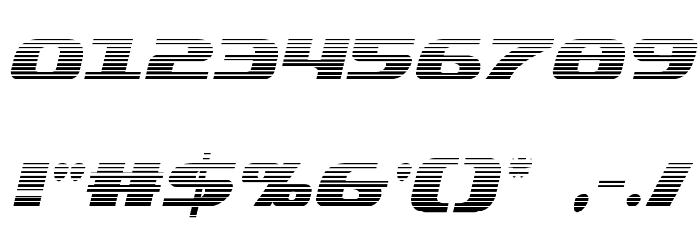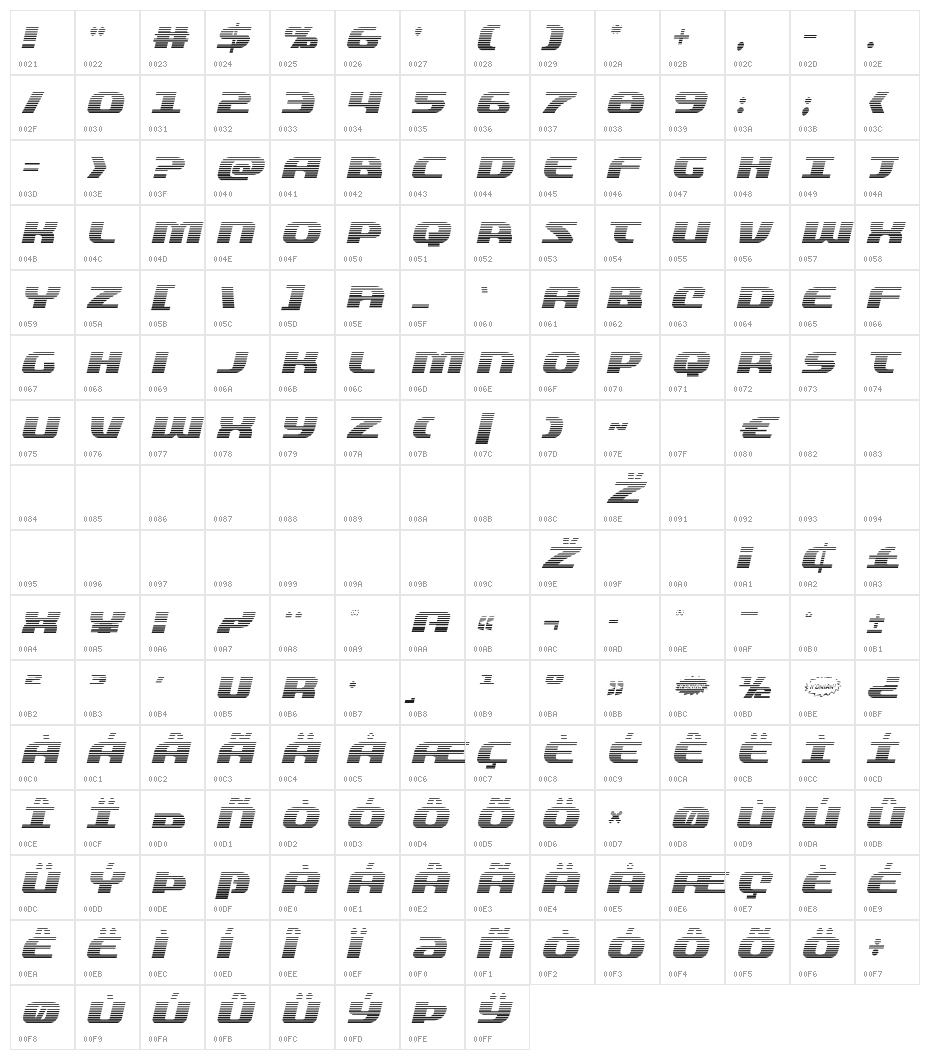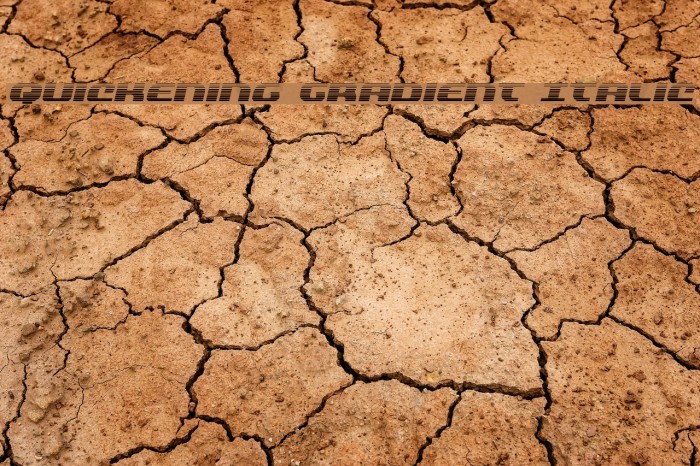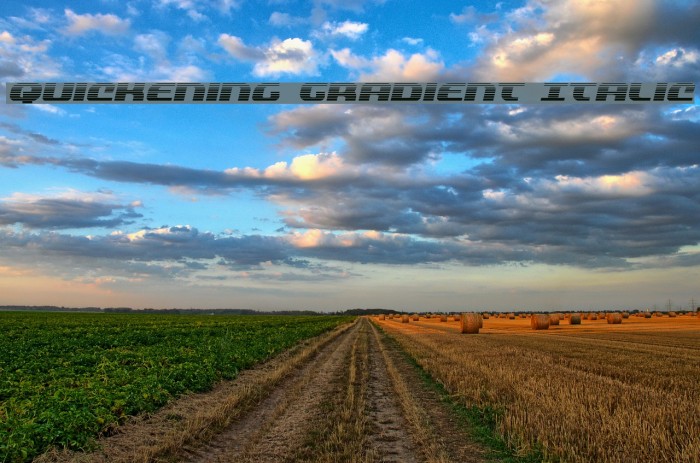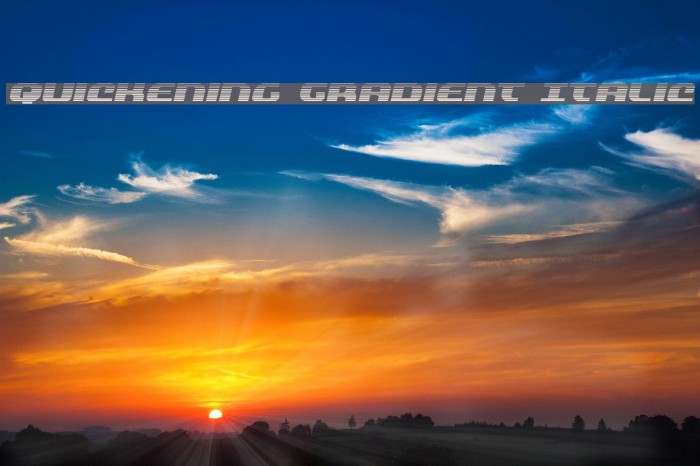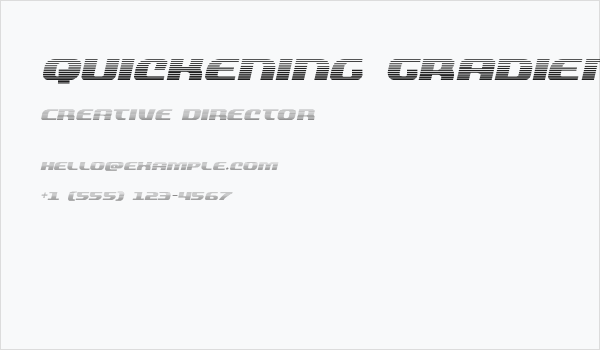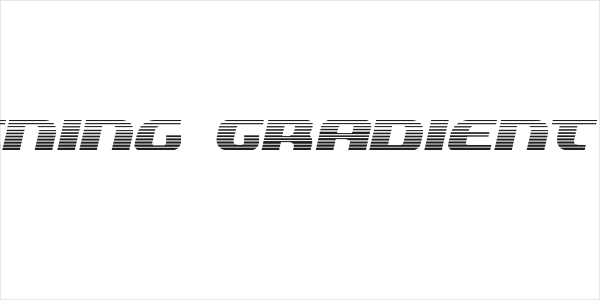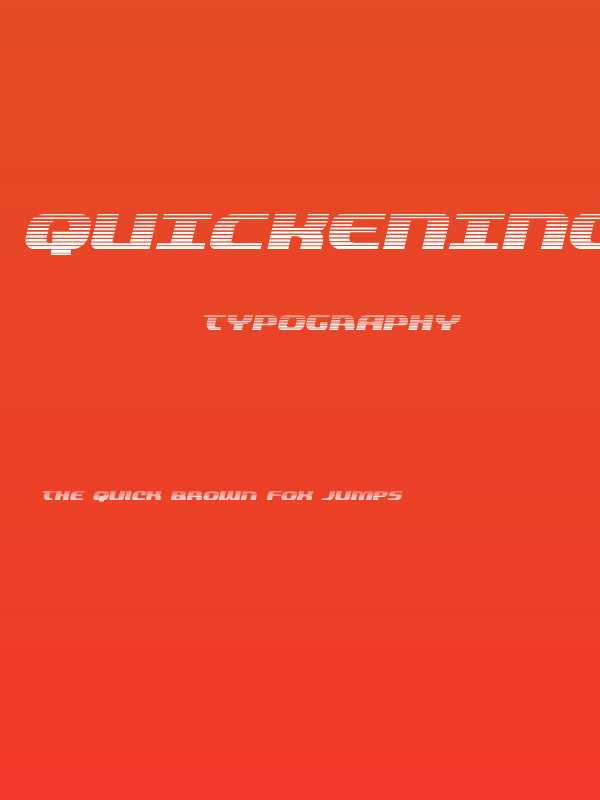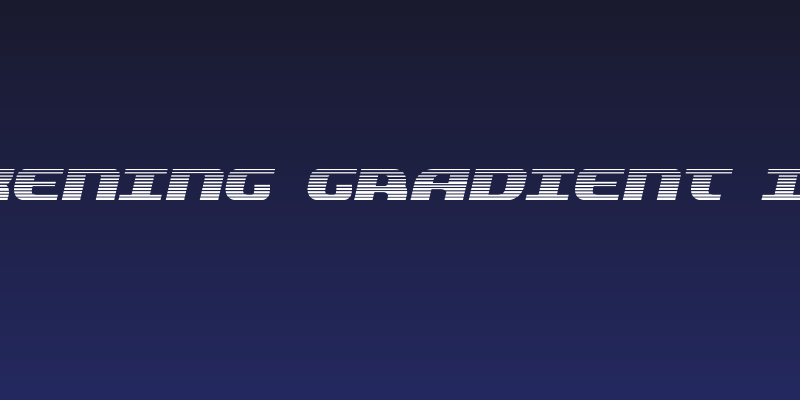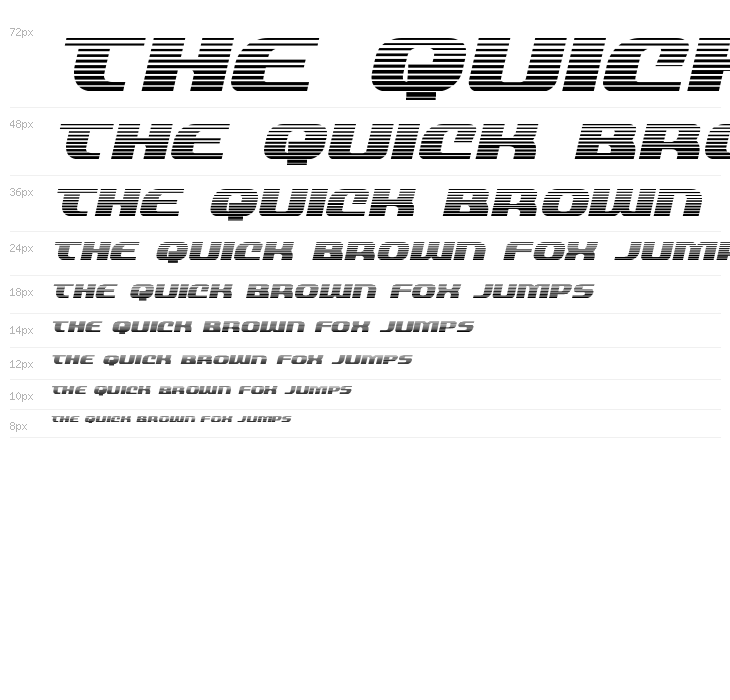
Quickening Gradient Italic Font
Quickening Gradient Italic Description
This font features a dynamic and futuristic design with a distinct italic slant, giving it a sense of motion and speed. Each character is composed of horizontal lines that create a gradient effect, enhancing its modern and digital aesthetic. The uppercase and lowercase letters maintain a consistent style, with sharp angles and clean edges. Numbers and special characters follow the same design principles, ensuring uniformity across all elements. The font's unique appearance makes it stand out, ideal for projects that require a bold and innovative look.
| Proposed Projects | Ideal for technology branding, sports team logos, video game titles, and sci-fi themed posters. |